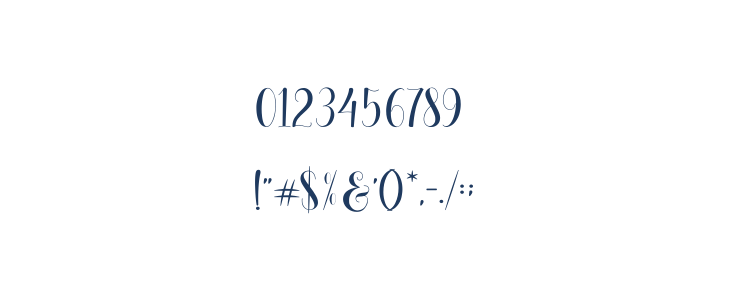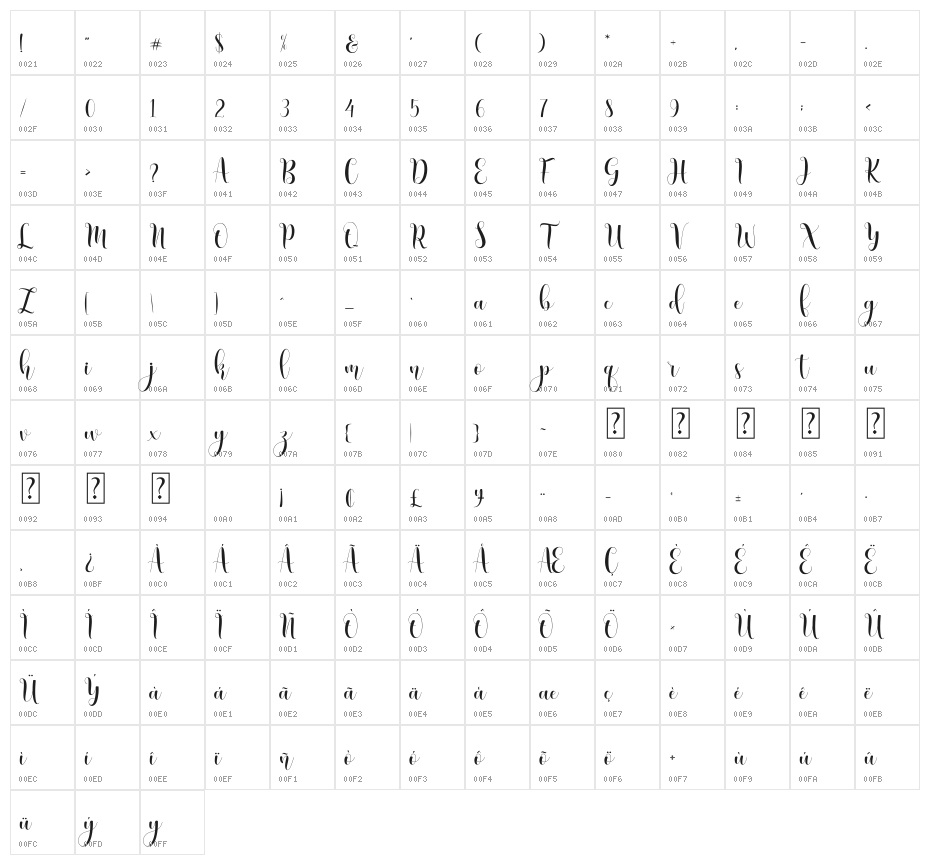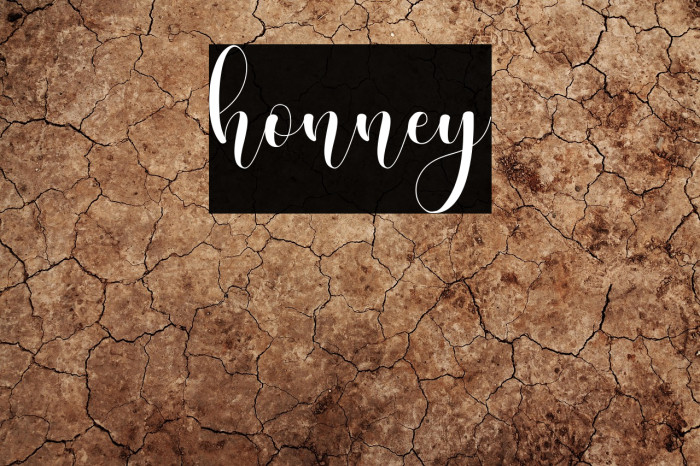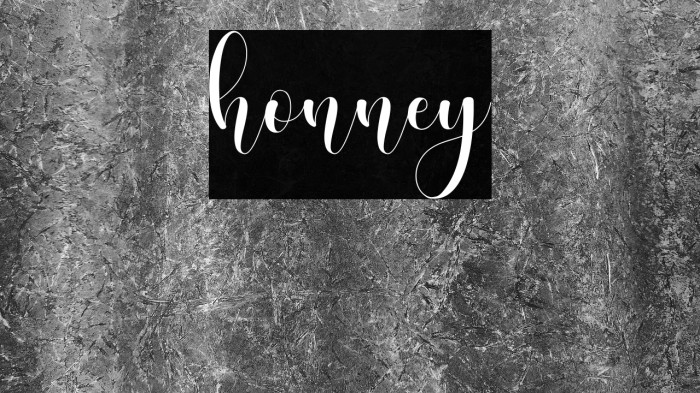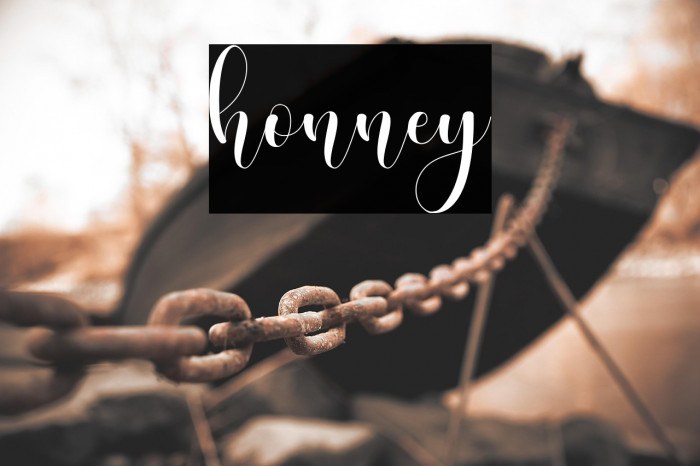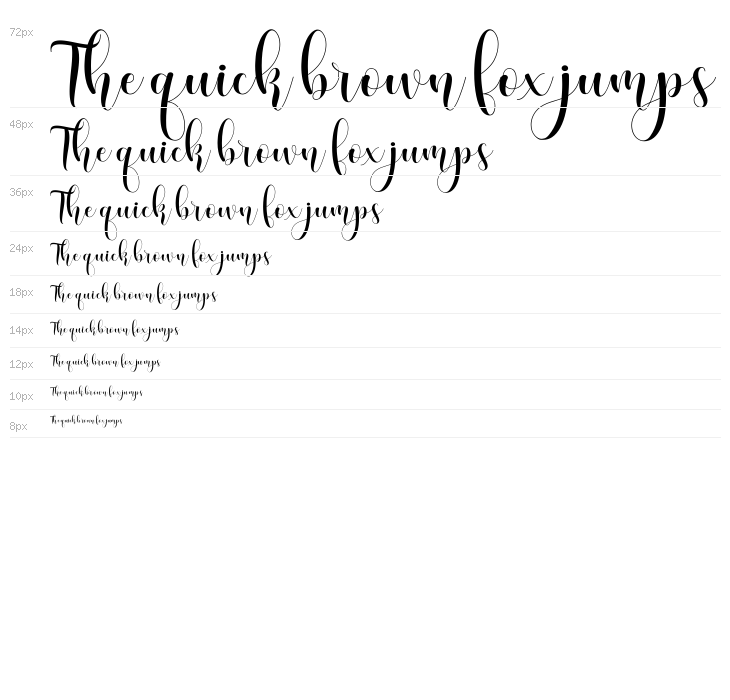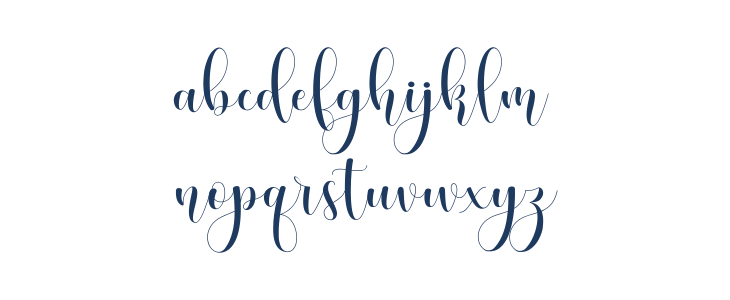
honney Font
honney Description
This font exudes elegance and sophistication with its flowing, cursive style. The letters are intricately designed with sweeping curves and flourishes, giving it a graceful and artistic appearance. The uppercase letters are particularly ornate, featuring extended loops and swashes that add a touch of drama. The lowercase letters maintain a consistent style, with smooth connections and a harmonious flow. The numerals and special characters are crafted with the same attention to detail, ensuring a cohesive look across all elements. This font is perfect for projects that require a touch of elegance and creativity.